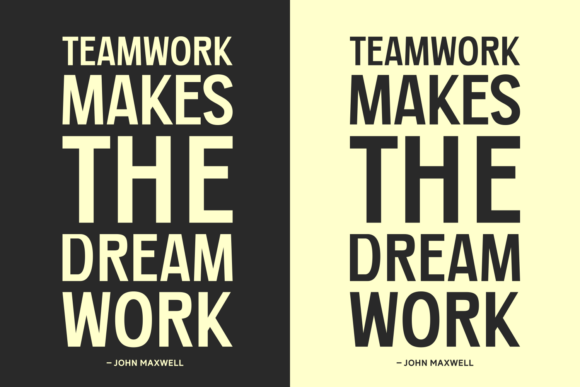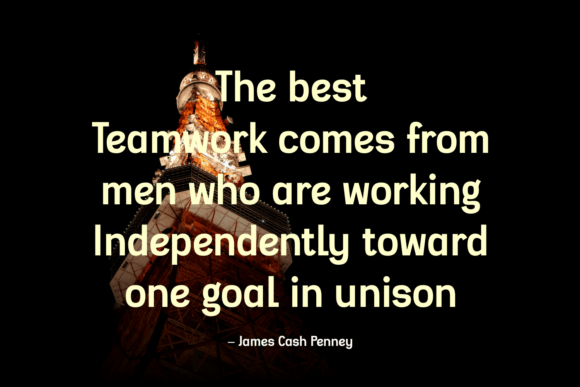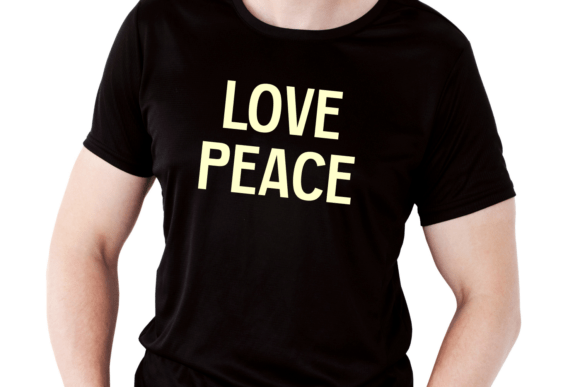
Introduction to Pleasing People Font
As designers, we’ve all been there – staring at a blank page, trying to find the perfect font to bring our creative project to life. It’s that moment of hesitation, wondering if our chosen font will truly convey the message we’re trying to convey. But what if I told you there’s a font that can make that decision a whole lot easier? Enter the Pleasing People Font, a bold modern sans serif font designed to command attention while remaining effortlessly clean and approachable.
This game-changing font is a valuable resource for designers, offering a unique blend of clarity and personality that’s perfect for making a confident statement in any design. With its tall, structured letterforms and subtle curvature, the Pleasing People Font is ideal for impactful headlines, branding, posters, and editorial layouts. Whether you’re working on a high-quality design or just need a free download to get started, this font is sure to deliver.
Pleasing People Font
- Unique, elegant design that adds a touch of sophistication to any creative project or design resource.
Honest Review: Pleasing People Font
As a designer, I’m always on the lookout for high-quality design resources to elevate my creative projects. Recently, I had the chance to work with the Pleasing People Font, and I must say, it’s a unique addition to any design.
Here’s what works well:
- ✨ The font has a clean and minimalist aesthetic, making it perfect for modern designs.
- ⚠️ The font may not be suitable for projects that require bold or dramatic typography.
- ⚠️ Some users may find the font a bit too simplistic for certain design applications.
Overall, I’d say the Pleasing People Font is a solid addition to any designer’s toolkit. While it may not be the most versatile font, it’s a high-quality resource that can help elevate a design with its clean and modern aesthetic.
Pleasing People Font
Tips for Getting the Most Out of the Pleasing People Font
To get the most out of the Pleasing People Font, try the following:
1. Use the font in combination with other design elements to create a visually appealing design.
2. Experiment with different font sizes and colors to create a unique look.
The Pleasing People Font is commonly used in:
1. Social media graphics and posts.
2. Blog posts and articles.
3. Business cards and brochures.